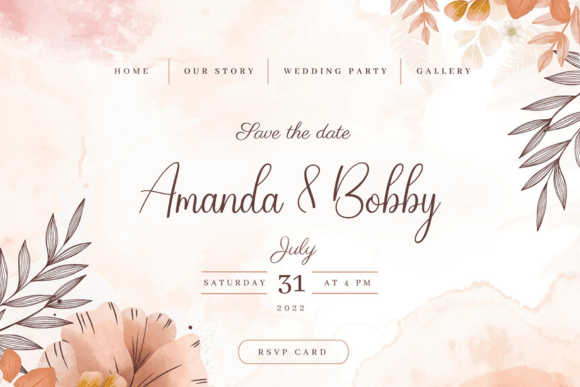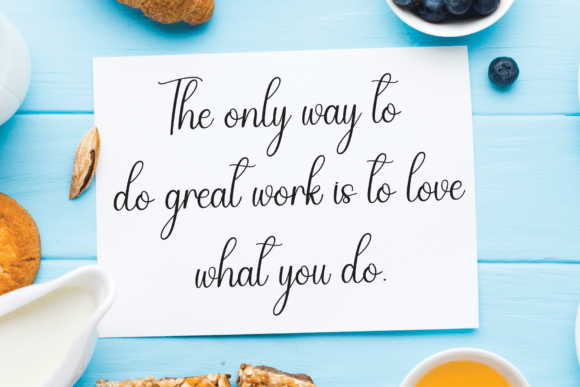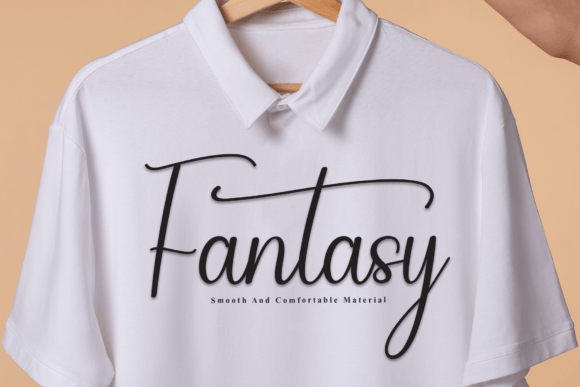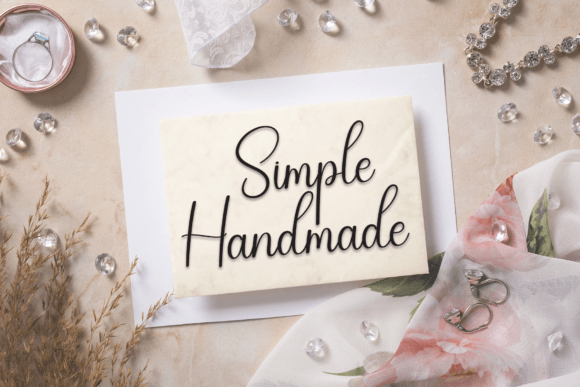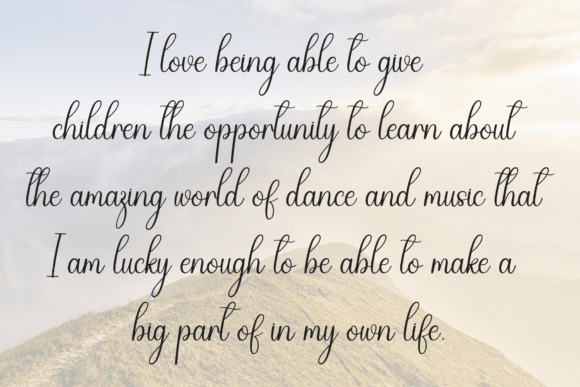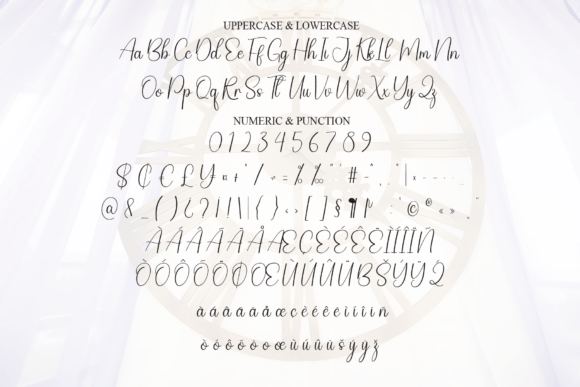
Introduction to Royaltime Font
Have you ever stumbled upon the perfect font while working on a design project and felt like a creative spark had ignited within you? That’s exactly what happened to many designers when they discovered the Royaltime Font. This beautiful handwritten font has been a game-changer for designers seeking to add a personal touch to their text.
With its stylish and flowing letters, the Royaltime Font is perfect for invitations, greeting cards, and any project that needs a warm and friendly feel. Its ease of readability makes it a valuable asset for designers, allowing them to convey their message effectively without compromising on aesthetics. Whether you’re working on a free download project or a high-quality design resource, the Royaltime Font is sure to elevate your creative project.
Key Features of Royaltime Font
- High-quality font design with a unique, elegant aesthetic, perfect for creative projects and design resources.
- Designed to be highly legible, making it an excellent choice for body text, headings, and titles in creative projects.
Honest Review: Royaltime Font
I recently came across the Royaltime Font, a free download that caught my attention due to its unique aesthetic. As a designer, I’m always on the lookout for high-quality design resources that can elevate my creative projects.
One of the standout features of the Royaltime Font is its high level of detail, with intricate textures and subtle flourishes that add depth to any design. The font also features a transparent background, making it easy to layer over different backgrounds and images.
Here are some things that work well with the Royaltime Font:
- ✨ Unique aesthetic that adds a touch of elegance to any design
- ✨ High level of detail and intricacy
- ✨ Transparent background for easy layering
- ⚠️ Limited character set, which may not be suitable for long blocks of text
- ⚠️ May not be compatible with all font styles or software
Overall, I’m impressed with the Royaltime Font, and I think it would be a great addition to any design resource library. While it may have some limitations, its unique aesthetic and high level of detail make it a valuable asset for designers looking to add some sophistication to their creative projects.
Common Use Cases for Royaltime Font
The Royaltime Font is ideal for various creative projects, including: